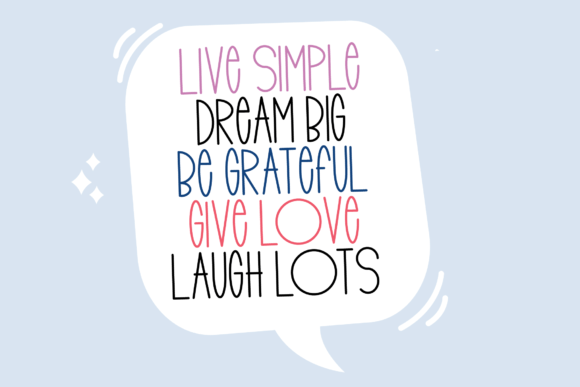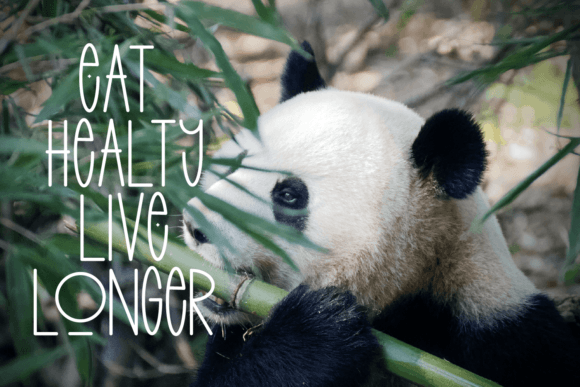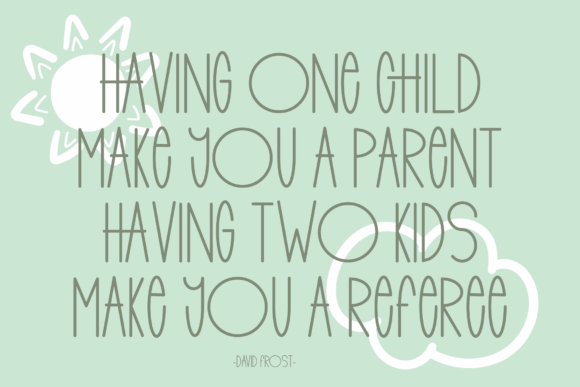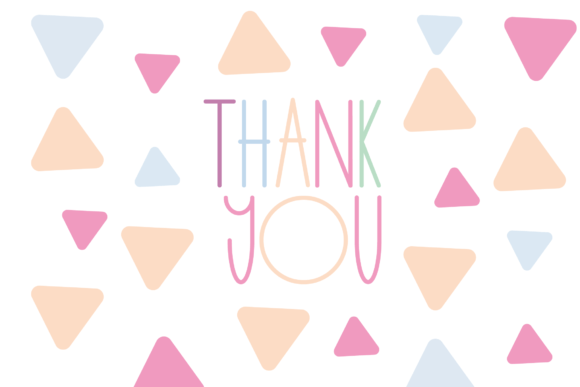
Get Ready to Add Some Fun to Your Designs!
Have you ever sat down with a blank page, a blank canvas, or even a blank screen, and suddenly felt the urge to create something truly unique and playful? That’s exactly what inspired us to dive into the world of fonts, and today, we’re excited to share with you the Funky Child Font – a vibrant, all-caps handwritten font that’s guaranteed to bring a smile to your face and a dash of fun to your designs.
Perfect for greeting cards, invitations, posters, T-shirt designs, and so much more, the Funky Child Font is a valuable asset to any designer’s library. Its unique, tall letters are sure to stand out and add a youthful touch to any project, making it a must-have for anyone looking to add a little extra personality to their work.
Funky Child Font Key Features
- Font Style: Funky Child is a playful, handwritten font that adds a touch of whimsy to any design.
- Character Set: The font includes a wide range of characters, including uppercase and lowercase letters, numbers, punctuation, and special characters.
- Unique Characteristics: Funky Child Font features a unique, hand-drawn look with subtle imperfections, giving it a distinctive and eye-catching feel.
Funky Child Font Review
I was excited to dive into the Funky Child Font, but my experience was a mixed bag. Here’s the breakdown:
- The font is perfect for adding a playful touch to designs, especially those targeting a younger audience.
- The bold and italic variations are well-designed and add to the overall funkiness of the font.
- The font is highly customizable, making it easy to adjust to suit different design needs.
- The regular weight of the font can appear somewhat bland and generic in certain contexts.
- The font may not be the best choice for designs requiring a high level of professionalism or sophistication.
- The character set is somewhat limited, which may not be ideal for international designs.
Overall, I’d say the Funky Child Font is a solid choice for designers looking to add a playful touch to their designs. While it may not be the best fit for every project, it’s a great option for those targeting a younger audience or looking for a fun, casual vibe. With some creative usage and customization, the Funky Child Font can be a real showstopper.
The Funky Child Font is ideal for:
- Creating playful and whimsical designs.
- Adding a touch of personality to your branding.
- Designing children’s products or educational materials.
Remember to use the font in moderation to avoid overwhelming your design.